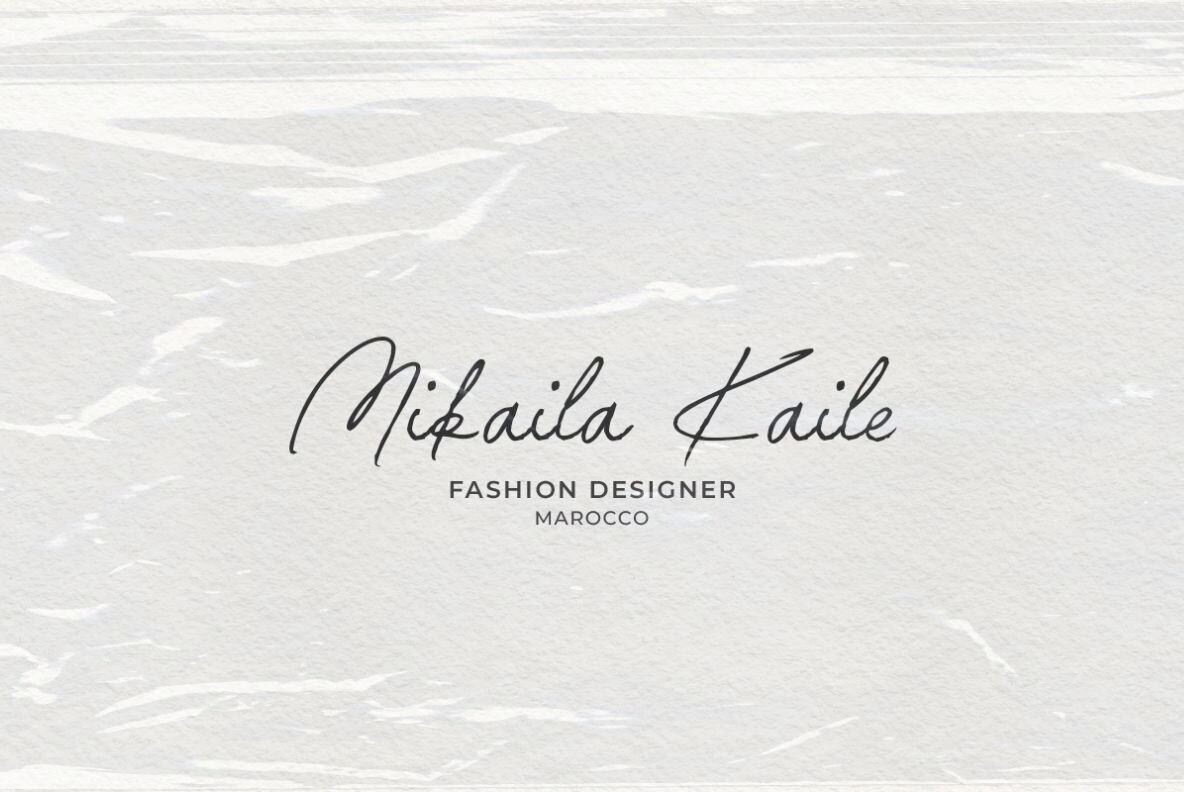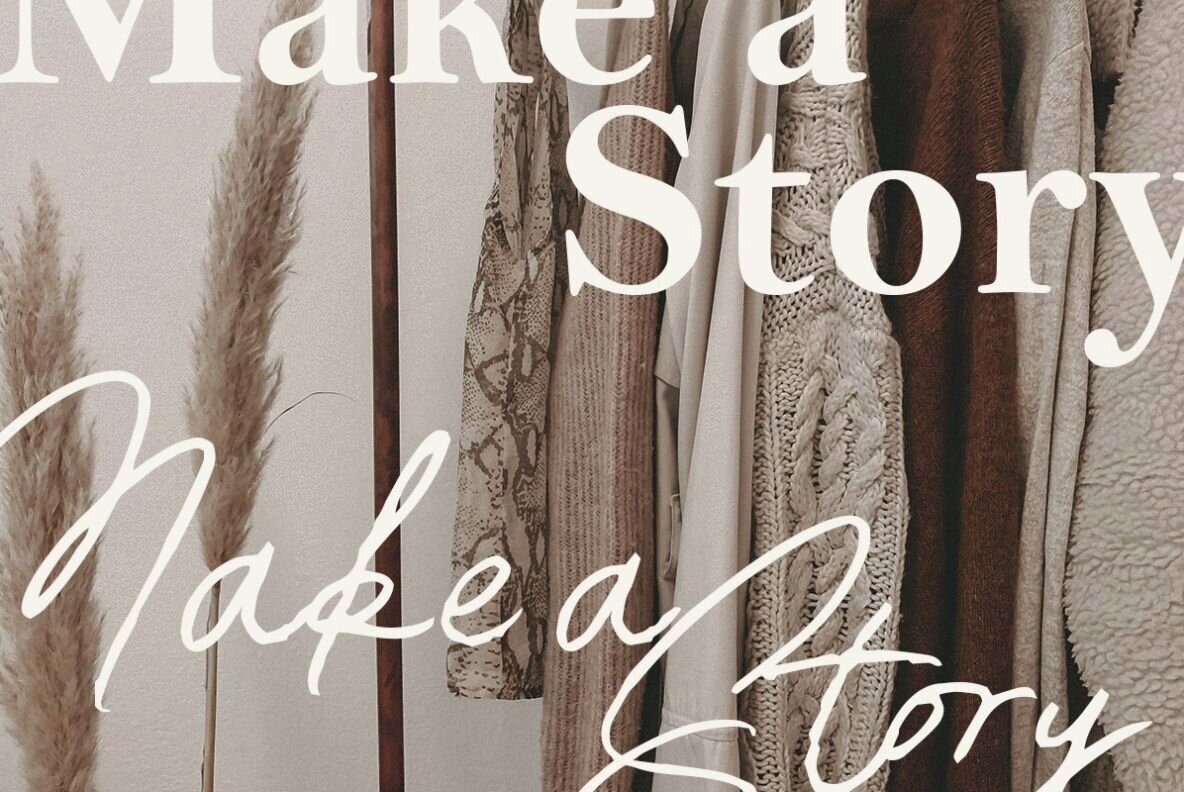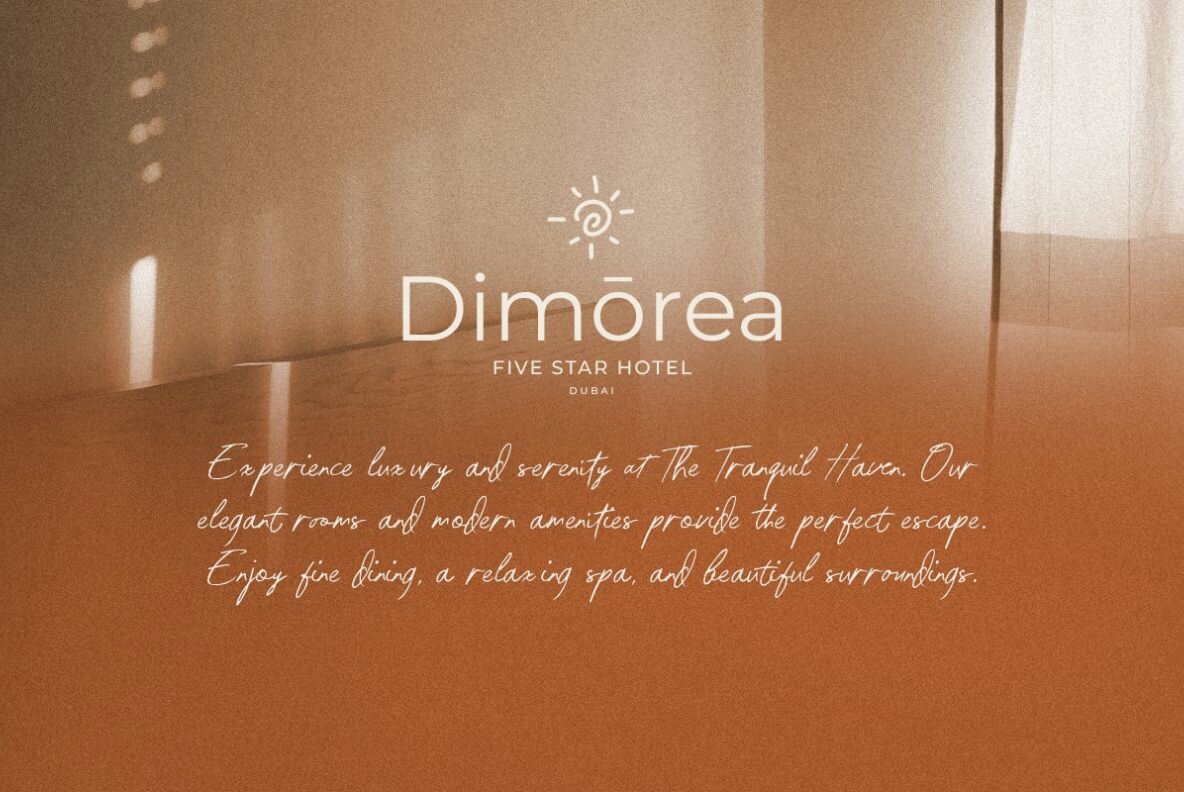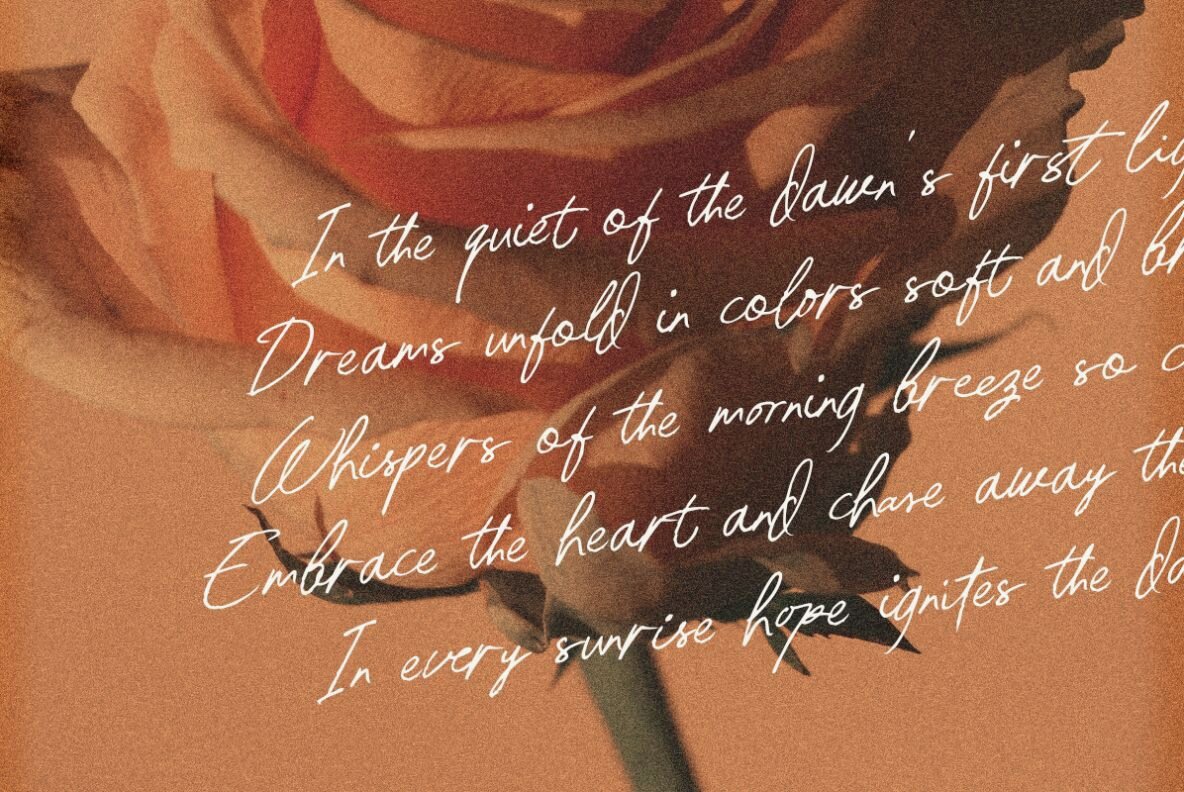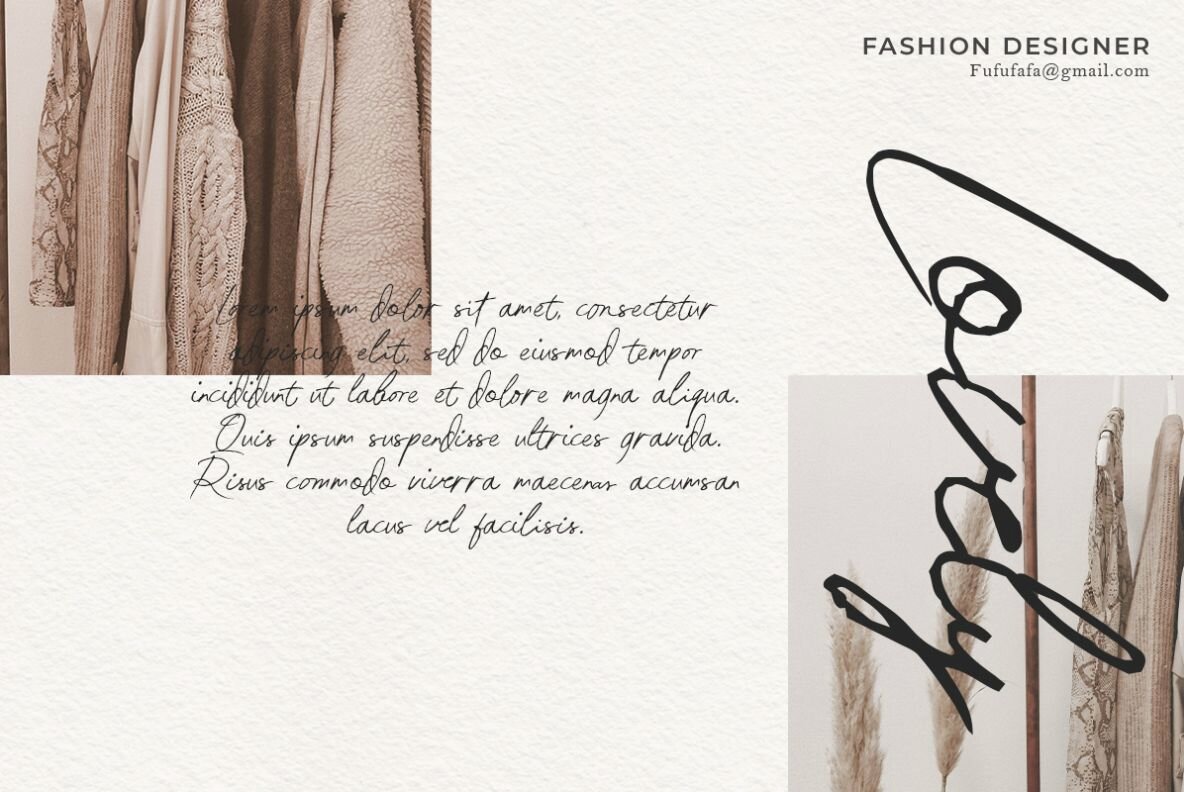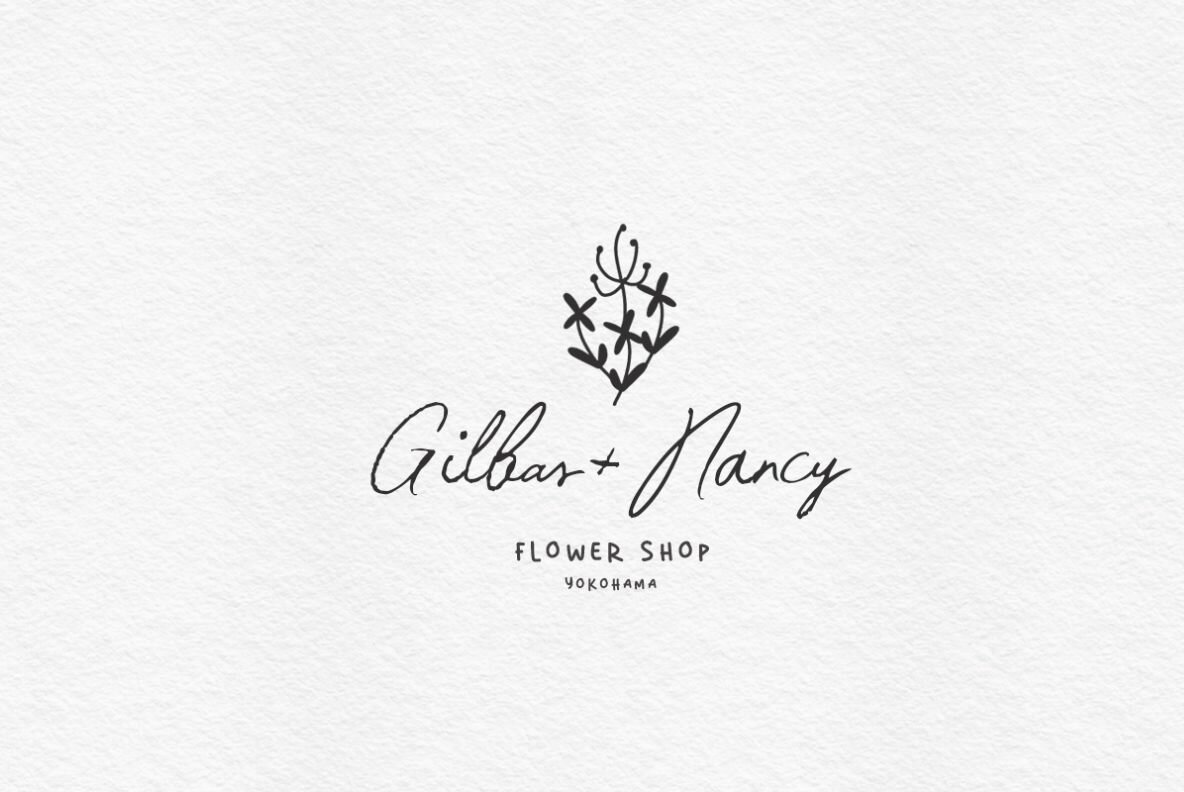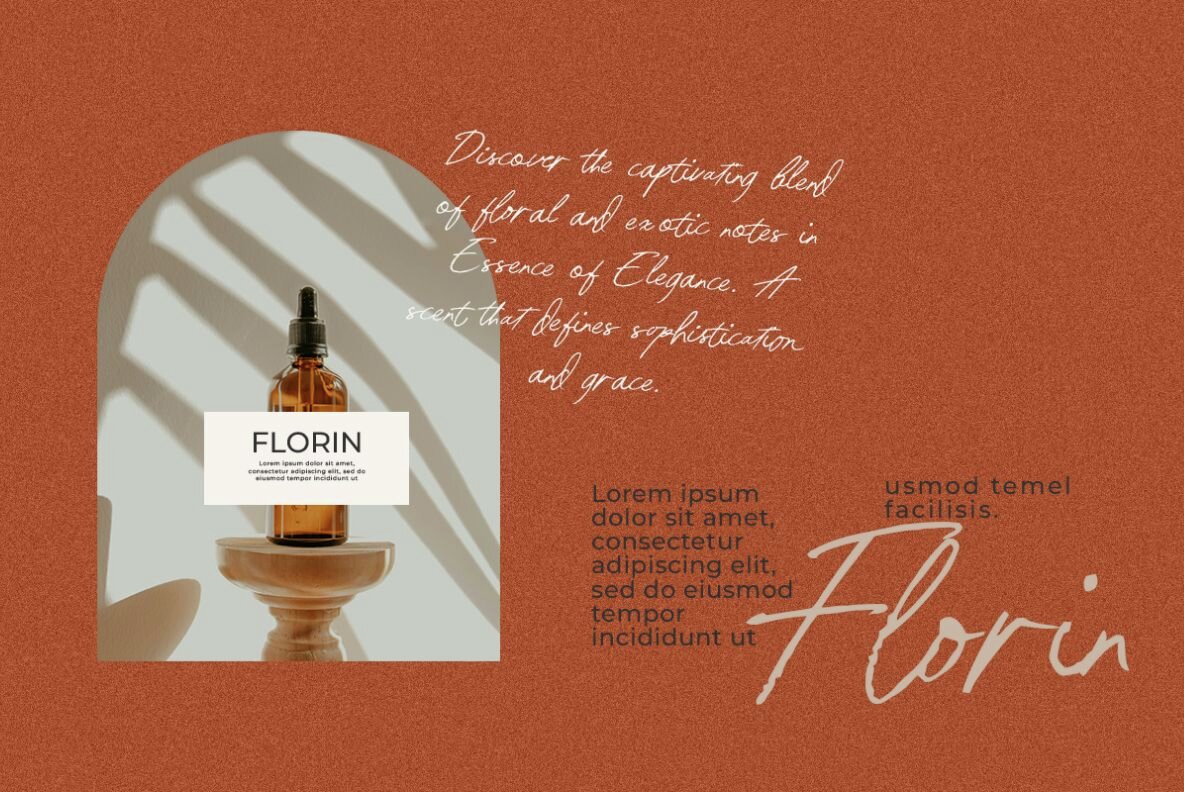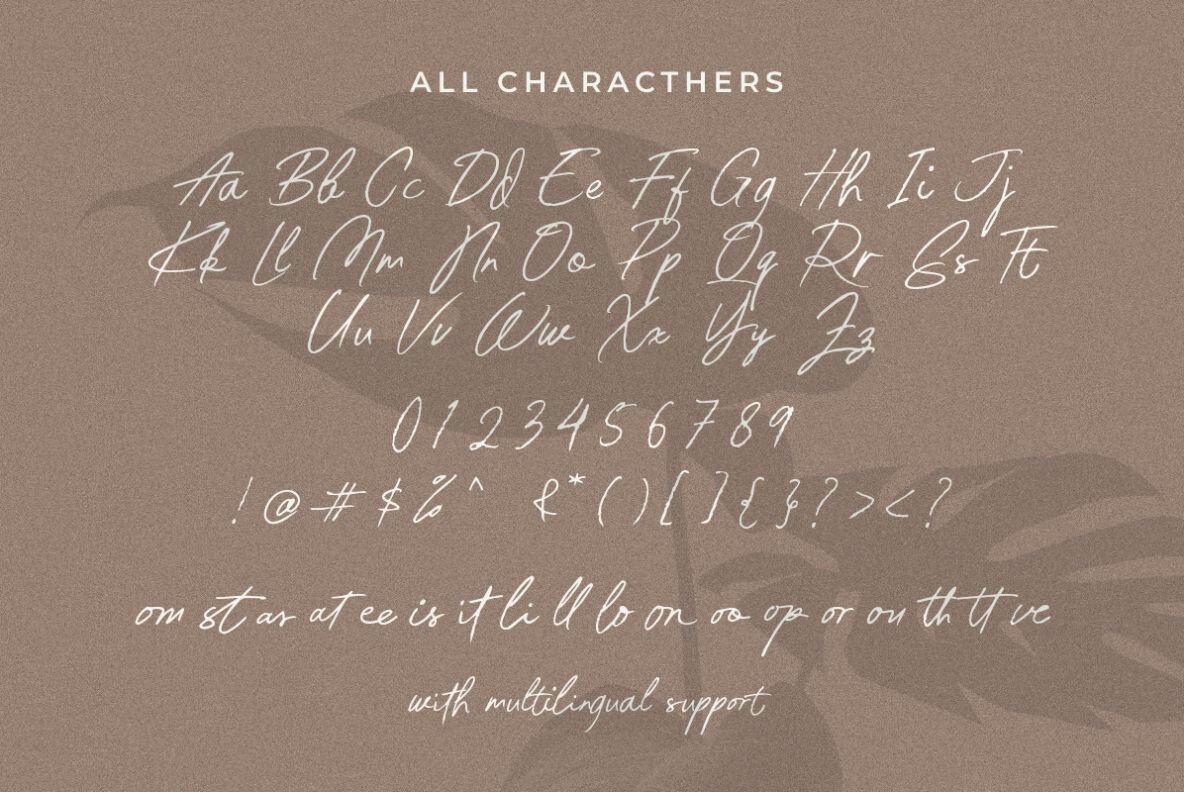
Western Risk 1
This handwritten script font features a flowing, cursive style with connected letterforms that exude elegance and informality. Perfect for personal branding, creative invitations, and expressive editorial design, this font adds a touch of artistic flair to any project.